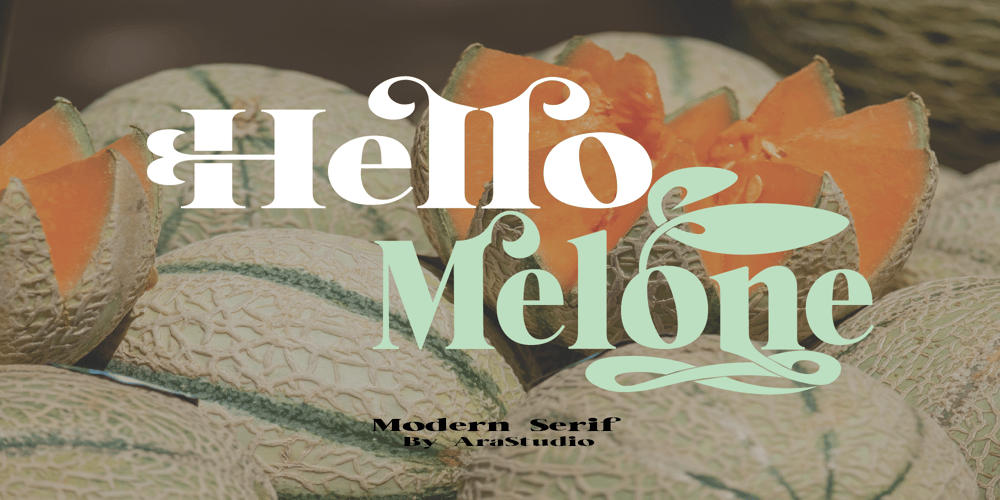
Hello Mellone
Hello Mellone font
Hello Mellone Font Family was designed by akhmad rizki cahyadi and published by Mazkicibe. Hello Mellone contains 1 styles and family package options. Hello Melone Font is Beautyful Serif and modern font combined with a sweet touch and beautifully curved each letter. Equipped with stunning character alternatives to make your design more strikin. using a touch of soft curves so that it is pleasing to the eye.Hello Melone Font is great for: Wedding invitations, fashion magazines, logos, signatures, and suitable for watermark. photography.branding, merchandise and so on. Type and type now to pour your creative ideas….Features: Uppercase, Lowercase, Numeral, Punctuation, Multilingual, Alternates, Ligatures & PUA Encoded.